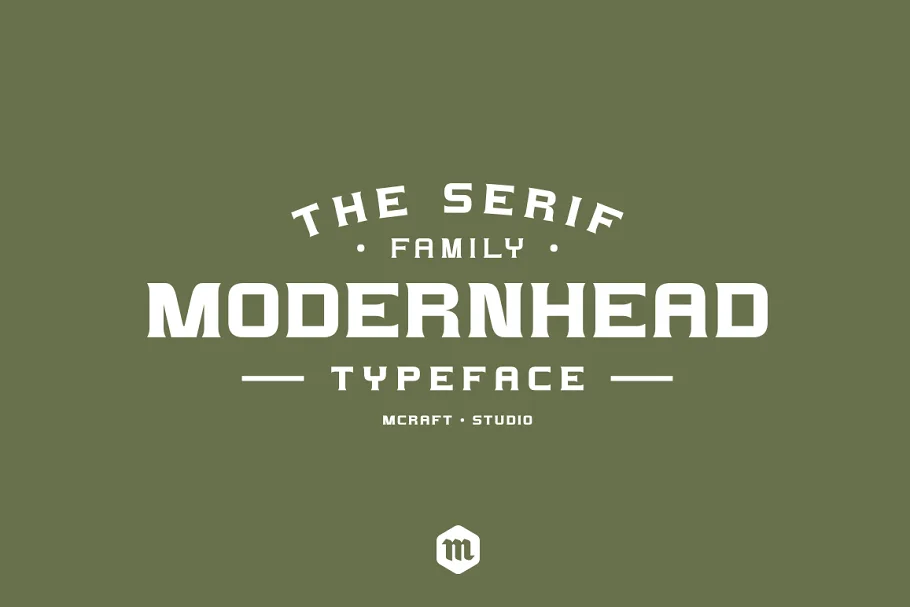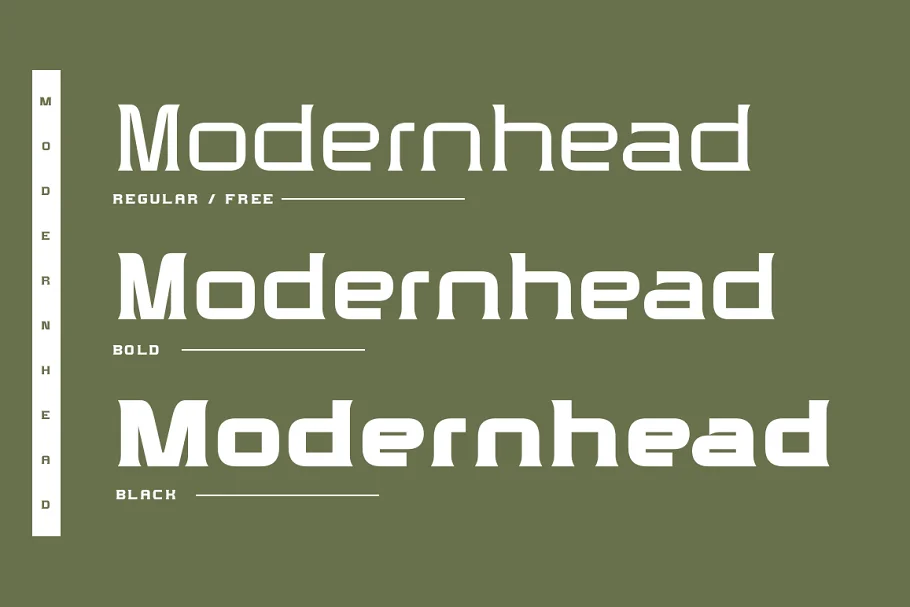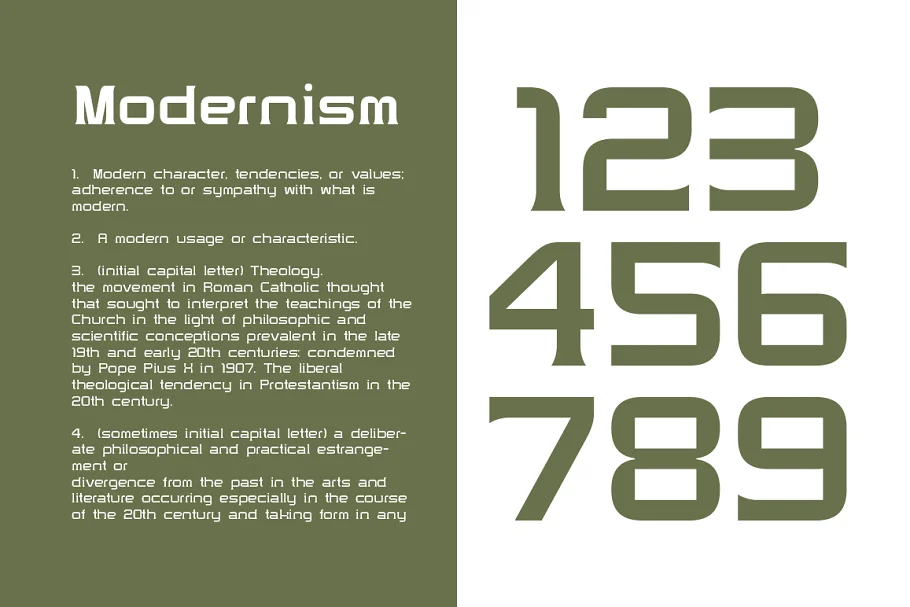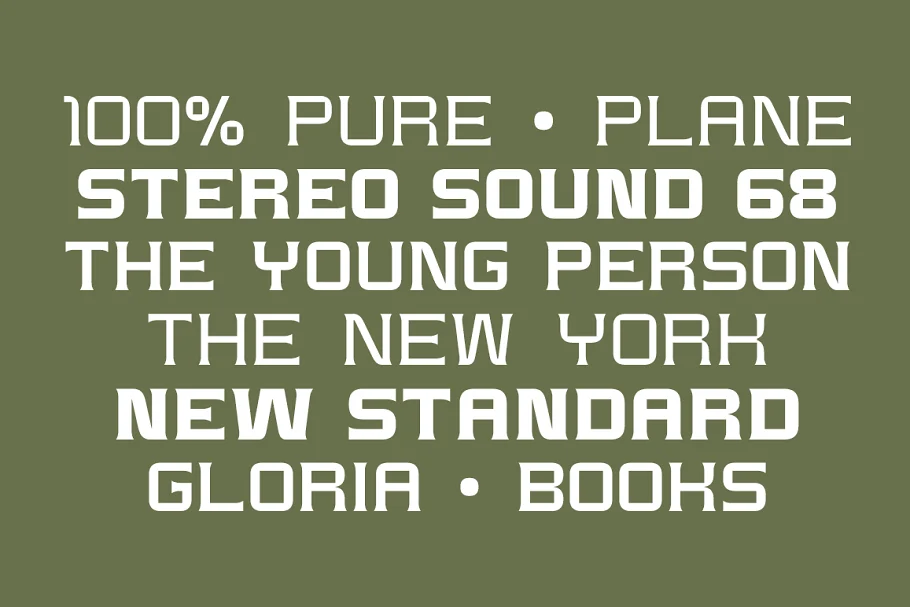
About the Modernhead Serif Typeface Font
Modernhead Serif is a 3 weights font family. Modernhead Serif is a modern, clean and simple serif font. It has 252 glyphs and supports multiple foreign languages.
Is perfect for modern logo designs, headers, and small amounts of text. It contains an uppercase and lowercase alphabet with numbers and symbols.